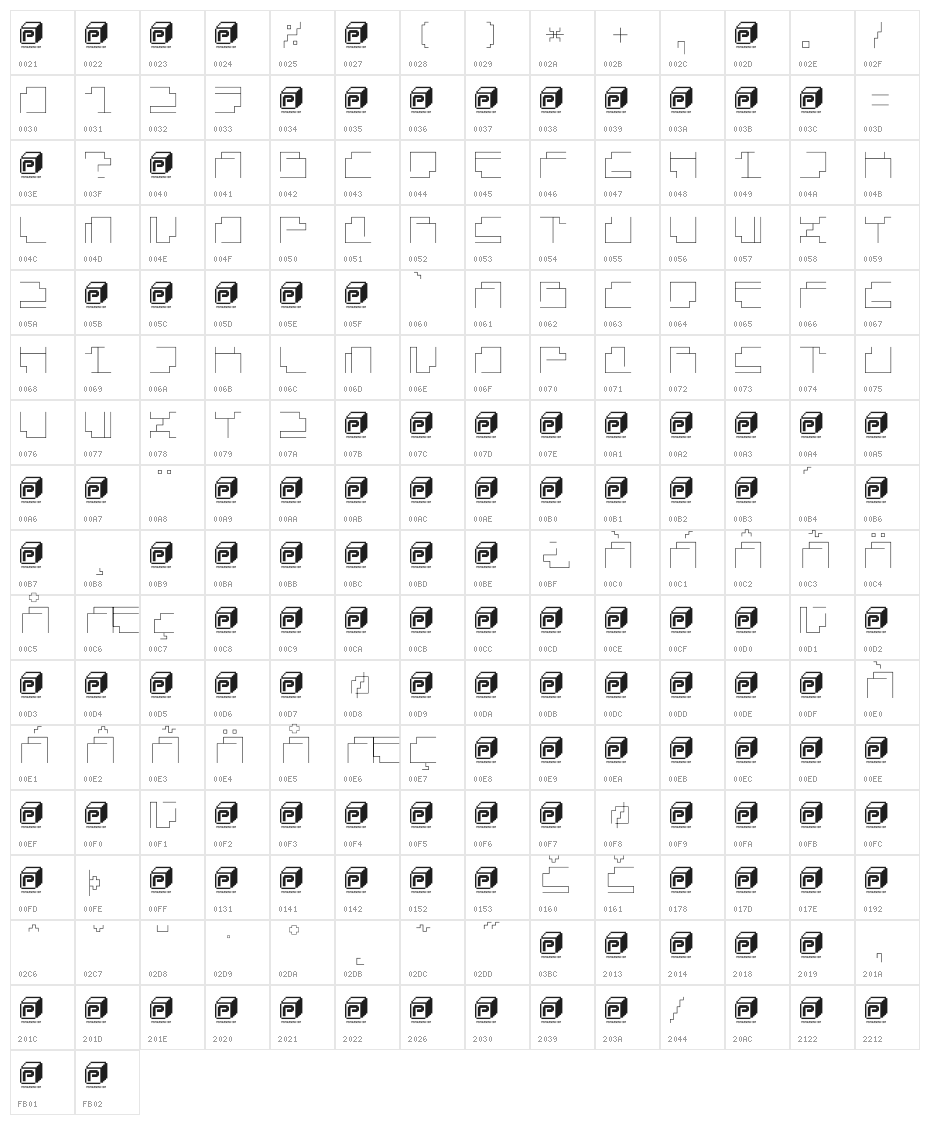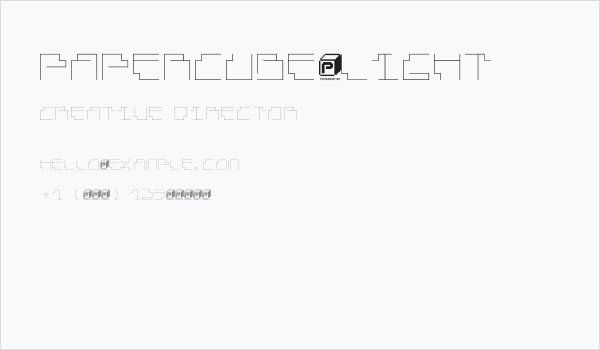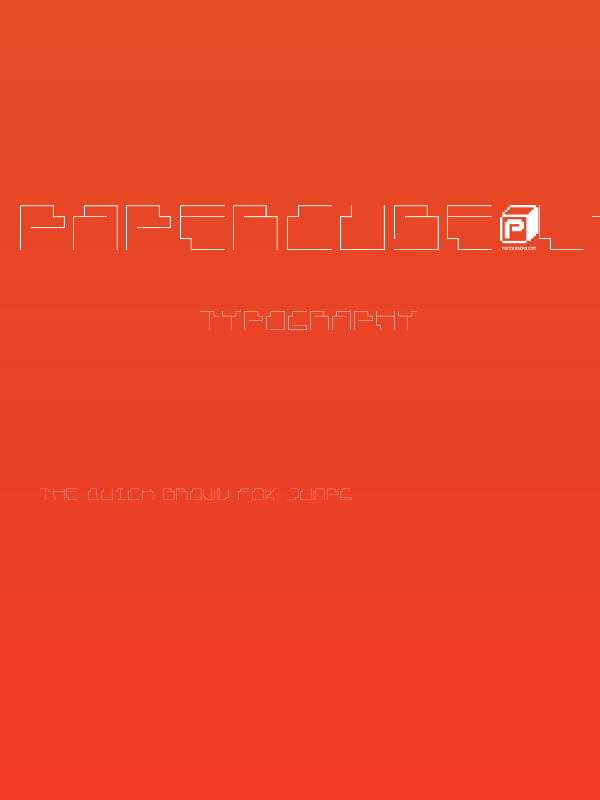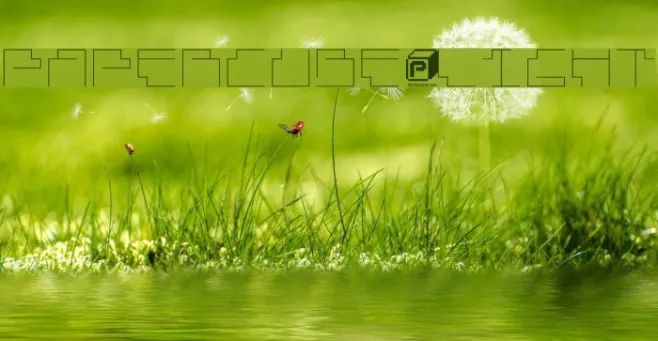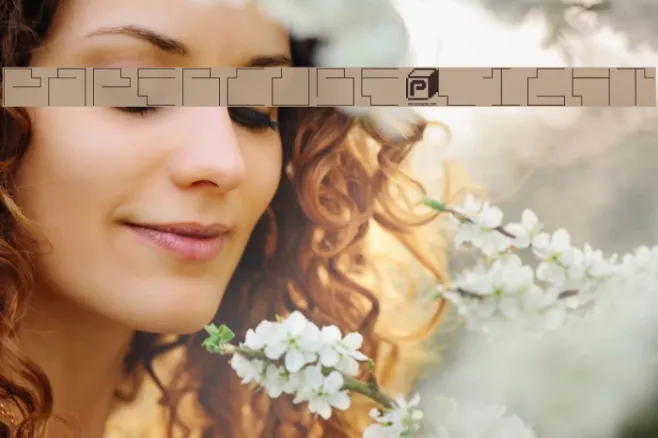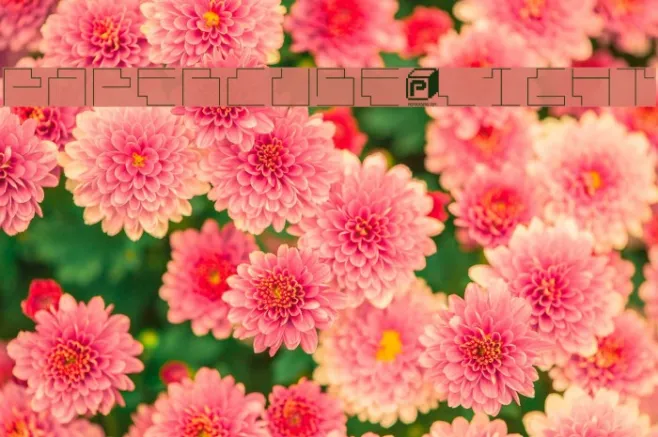
PaperCube-Light Font
PaperCube-Light Description
This font features a unique, geometric design with a minimalist, wireframe appearance. Each character is constructed using straight lines and right angles, giving it a distinctly modern and digital feel. The uppercase and lowercase letters maintain a consistent style, with a uniform line weight that contributes to its clean and uncluttered look. Numbers and special characters follow the same design principles, ensuring a cohesive visual identity across all glyphs. The font's simplicity and precision make it suitable for tech-oriented projects or futuristic themes.
| Use Case | Logos, Headlines, Digital Art |
| Proposed Projects | Ideal for tech branding, digital art, futuristic posters, and modern web design. |